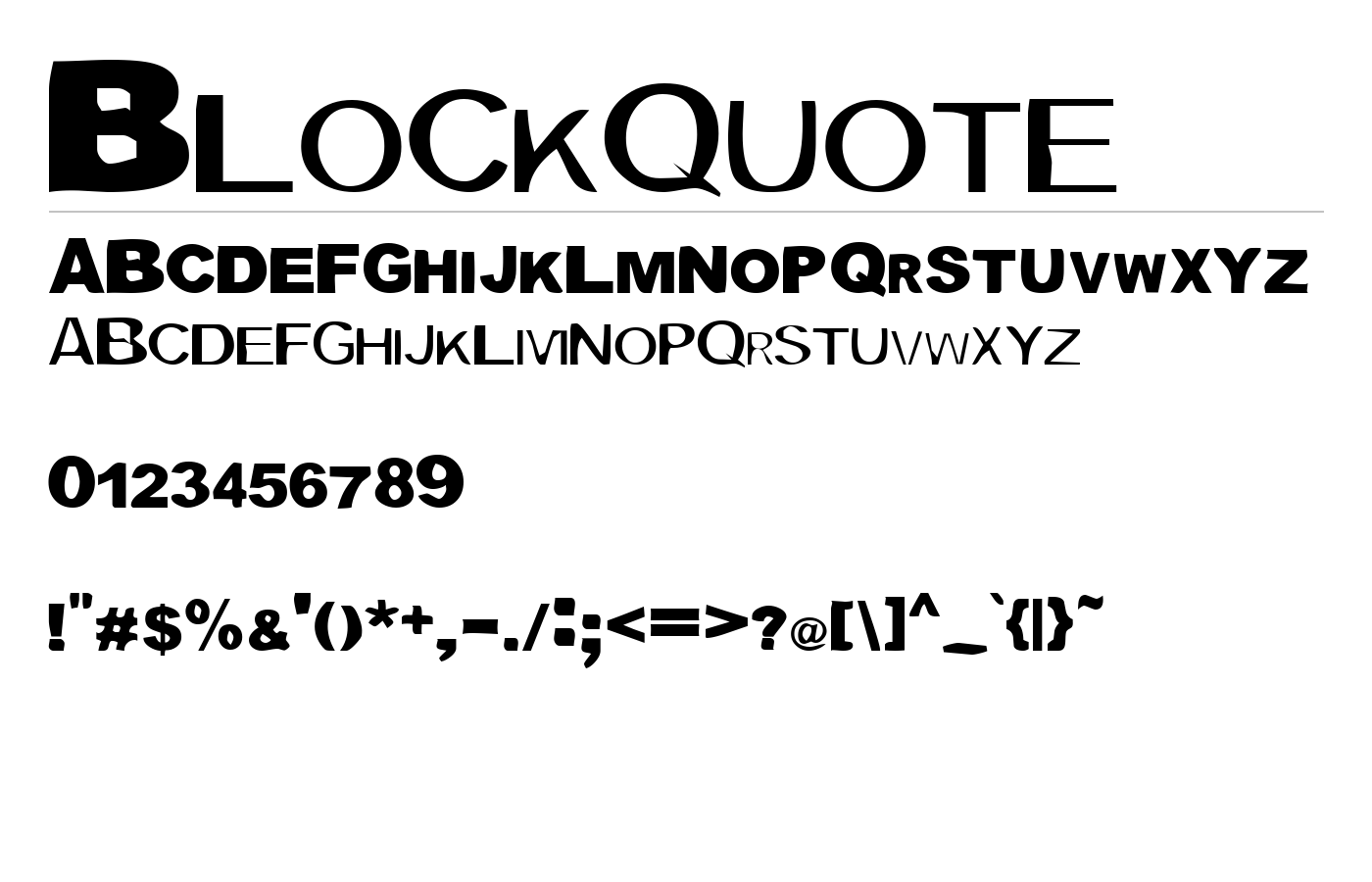
BLOCBL is a distinctive sans serif font combining bold, blocky uppercase letters with quirky, irregular lowercase forms that give it a playful yet strong personality. Its high contrast and uneven strokes create a dynamic, handmade feel, making it ideal for attention-grabbing headlines, logos, and creative branding projects that need a unique, artistic touch. This font works best in designs seeking a bold, expressive style with a modern twist.
BLOCBL Font
About BLOCBL Font